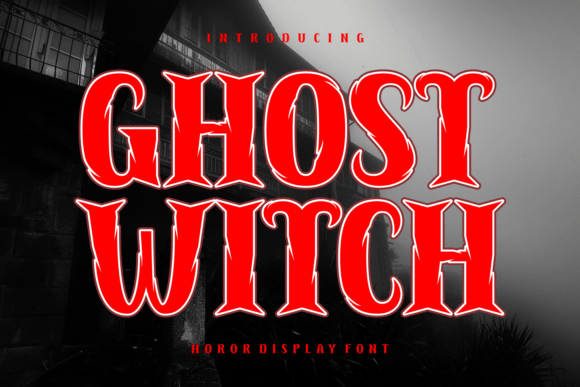
Introduction to Ghost Witch Font
Dare to explore the thrilling side of design with β€œGhost Witch,” a captivating display font.
Injecting a dose of spookiness into your creations, it fuses Halloween, scary, and spooky elements, making it the perfect ingredient for a hair-raising Halloween party invite or a ghastly yet savingly endearing ghost story Drawing inspiration from the world of the undead, these haunted, zombie, and witch-inspired font styles send chills down the spine while retaining an irresistible charm.
Key Features of Ghost Witch Font
Why Choose Ghost Witch Font?
Ghost Witch Font offers exceptional quality and versatility, making it a valuable addition to your design toolkit. Whether you’re creating for personal projects or commercial use, Ghost Witch Font delivers professional results.